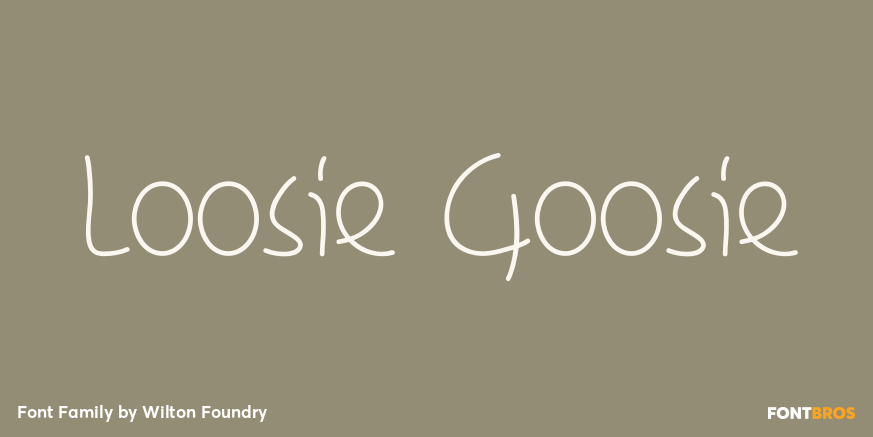
Loosie Goosie
Font Family by Wilton Foundry
Loosie Goosie is a fun, wacky sans serif with a loose, offbeat personality. Its playful shapes give headlines and short phrases an easygoing, animated feel that stands out without looking stiff or formal.
This family includes 2 styles—Thin and Regular—giving you a little room to shift the tone from lighter and quirky to fuller and more attention-grabbing. It’s a natural fit for posters, expressive branding, kids-focused projects, packaging, social graphics, and other display work that benefits from a cheerful, unconventional voice.
Designed by Wilton Foundry, this is a characterful choice for projects that need something lighthearted, bold, and a little unpredictable.